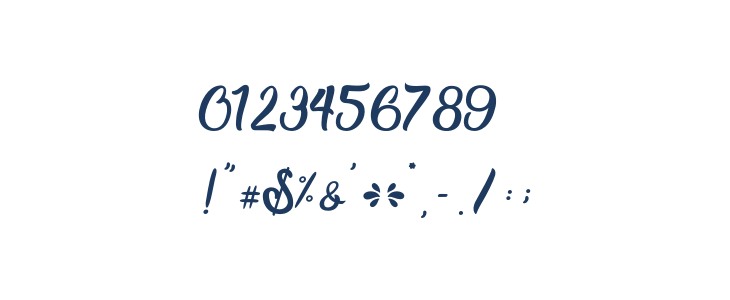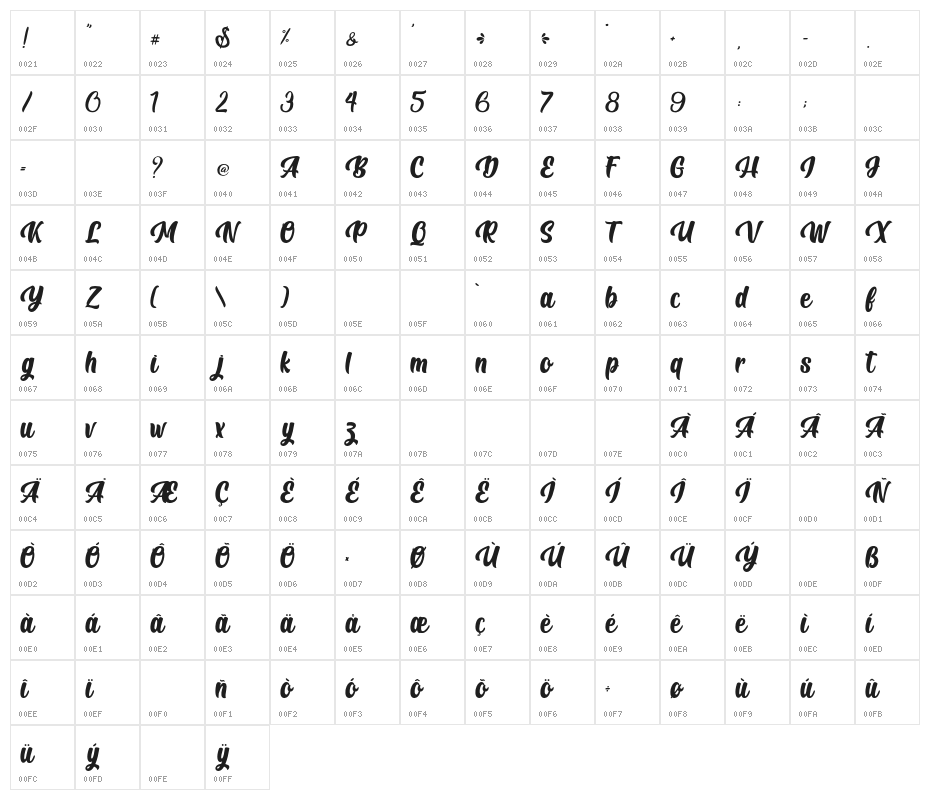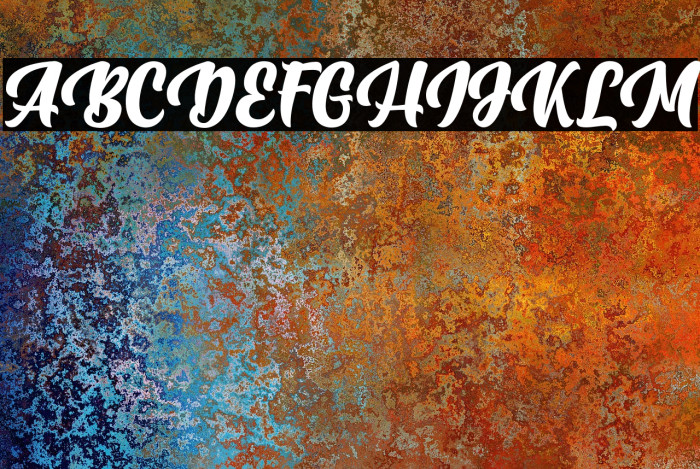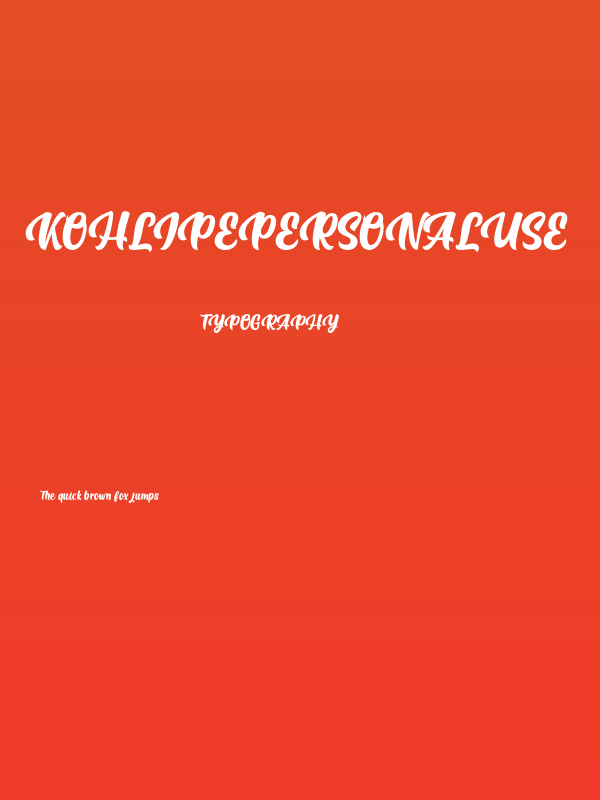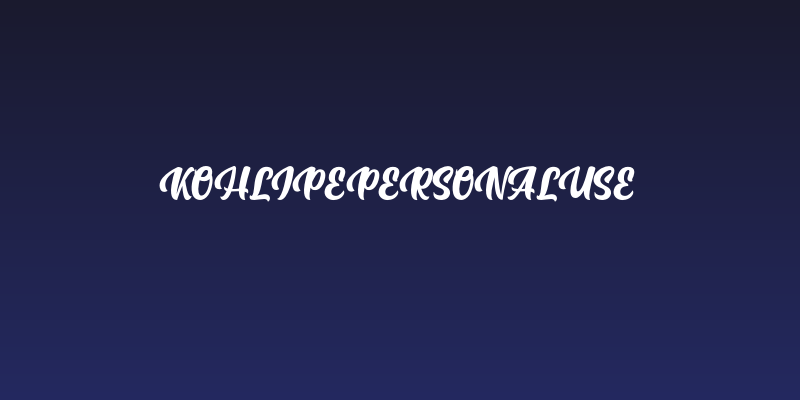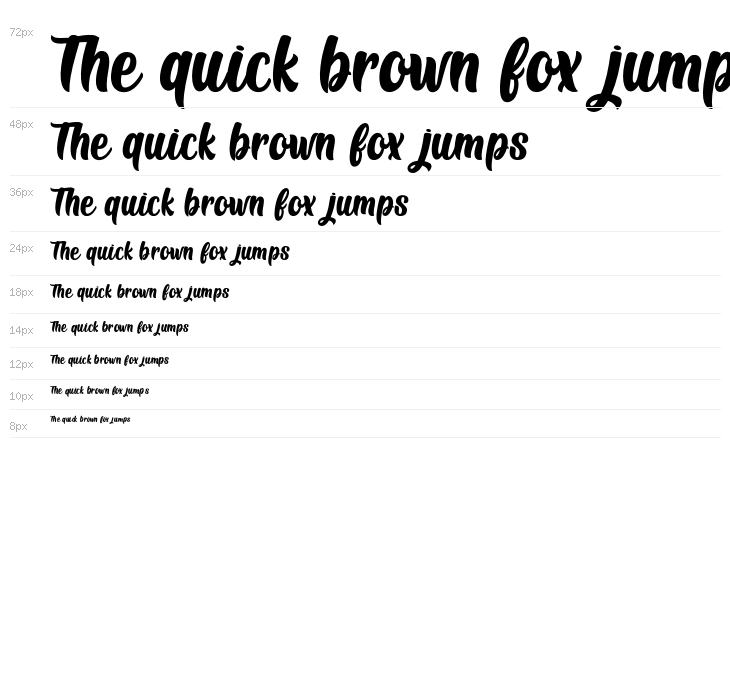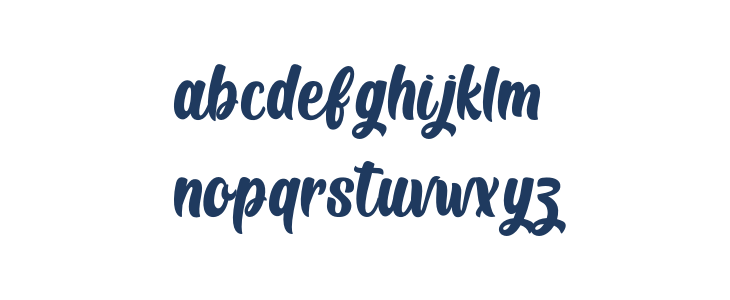
KohLipePersonalUse Font
KohLipePersonalUse Description
This font features a bold and expressive script style, characterized by its flowing, cursive letterforms. The uppercase letters are elegantly crafted with sweeping curves and a sense of movement, while the lowercase letters maintain a consistent rhythm and balance. The numerals are distinct and easy to read, complementing the overall aesthetic. Special characters are thoughtfully integrated, maintaining the font's cohesive look. The design is both playful and sophisticated, making it suitable for a variety of creative applications.
| Use Case | Logos, Headlines, Invitations |
| Proposed Projects | Ideal for branding, invitations, greeting cards, and creative projects that require a personal touch. |